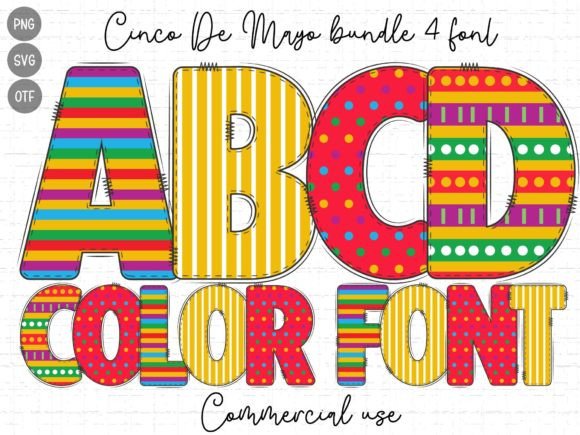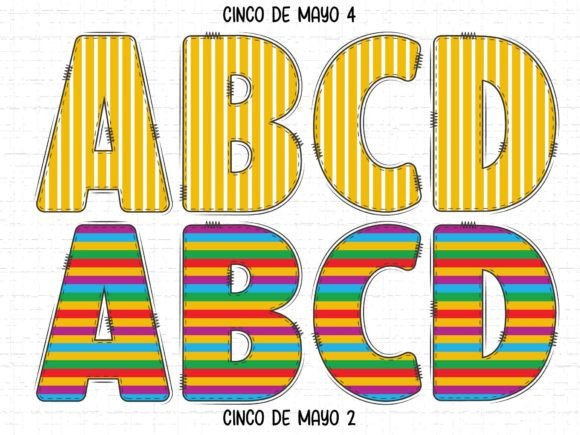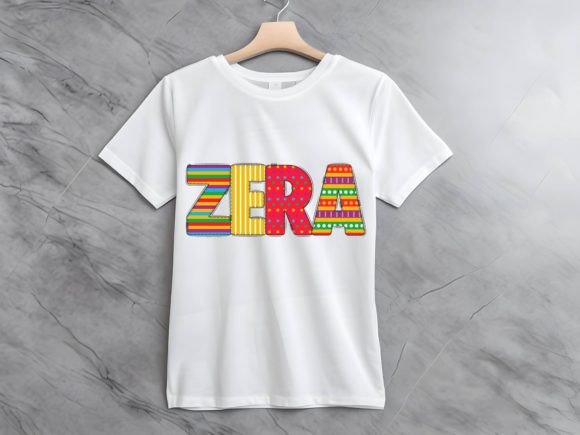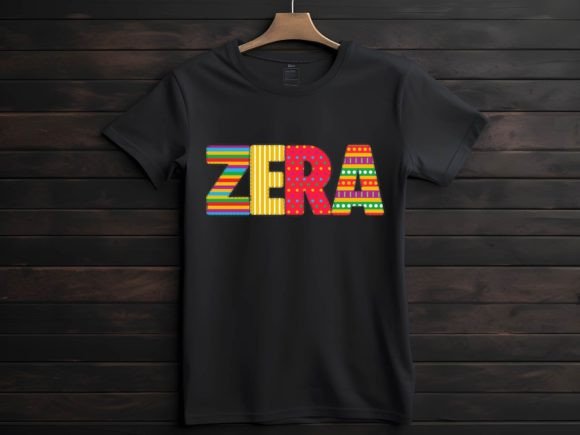
Cinco De Mayo Font
Cinco De Mayo is a joyful and festive color font. These chubby characters are embellished with cute stars and Mexican motifs. Try it on party invitations, Cinco de Mayo projects, posters, cards, fabric prints, and more.